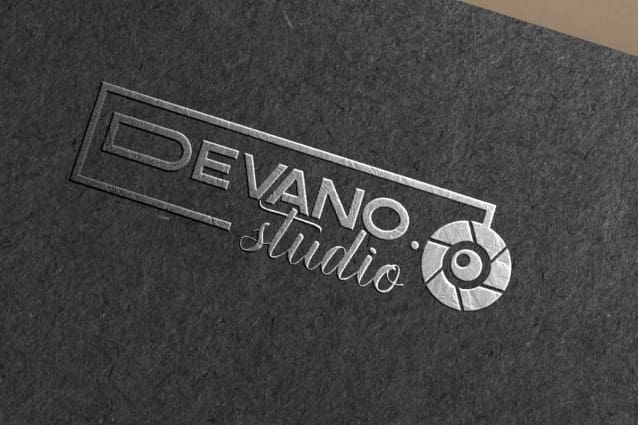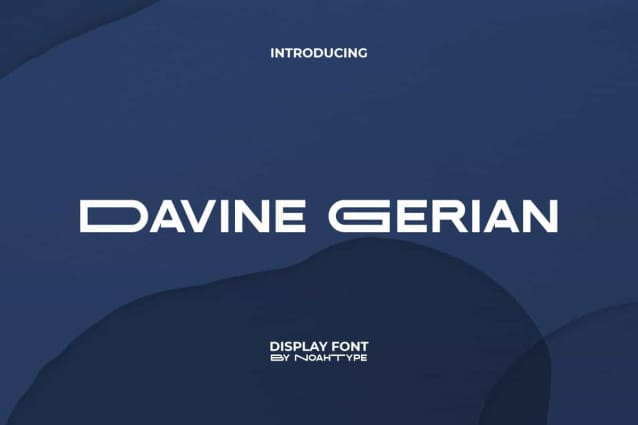
Davine Gerian Font
Davine Gerian Font is a modern stylish display font by NoahType. This is a Sans Serif font whose letterforms are made unique as a more stylish variation. It will be good for any designs, such as brand image, cover, custom design, invitation, label, marketing material, menu, poster, product packaging, quotes, signage, stationery, web and many more!
Davine Gerian Font includes a complete set of ALL CAPS for Uppercase and Lowercase Basic Characters with different looks for both, Numerals, Punctuation and Symbol. The characters of this font will give modern look and also a perfect choice for many industries, such as accessories, advertising, camping, event or festival, fashion, movie, photography, printing, publishing, sport, travel, etc.